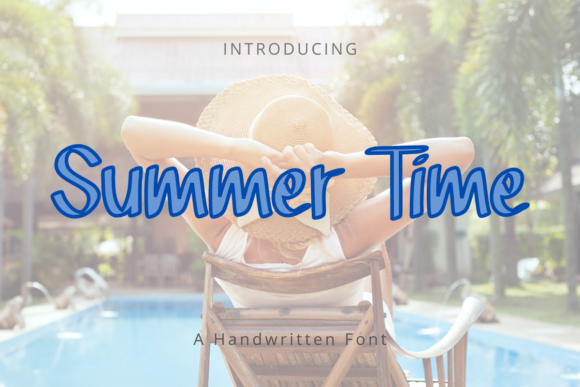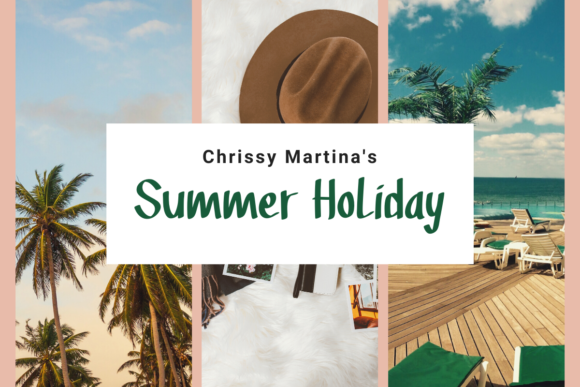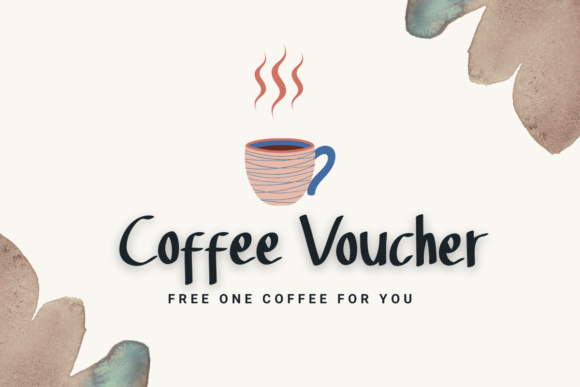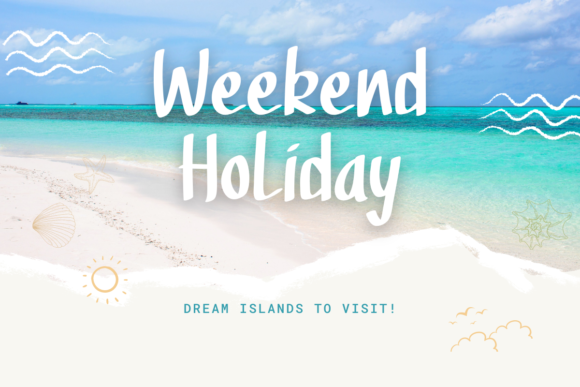
Summer Time Font
About Summer Time Font
Summer Time is a fun, relaxed and jolly handwritten font. Whether you’re looking for fonts for Instagram or calligraphy scripts for DIY projects, this font will turn any creative idea into a true piece of art!